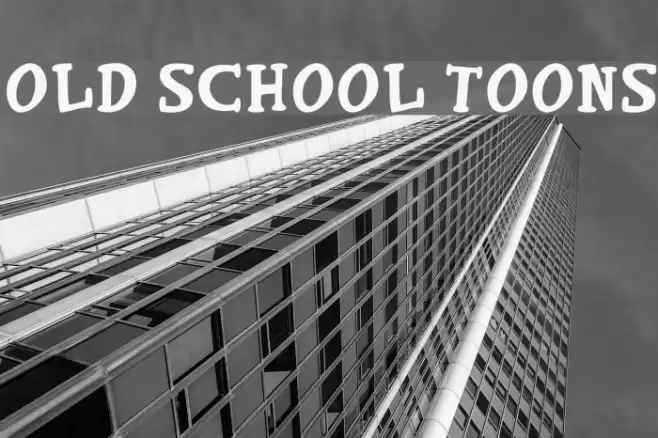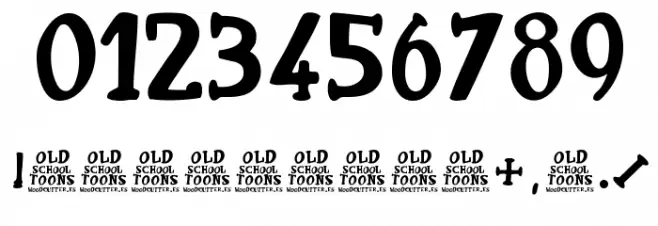
Old School Toons Font
Old School Toons Description
This playful and whimsical font features bold, rounded characters with a cartoonish flair, reminiscent of classic animated films. The letters have a hand-drawn quality, with slight variations and irregularities that add to their charm. The strokes are thick and consistent, providing a strong visual impact. The font includes both uppercase and lowercase letters, numbers, and a selection of special characters, making it versatile for various design needs. Its unique style is perfect for projects that require a touch of nostalgia and fun.
A bold, cartoonish font with a playful, hand-drawn style from Uncategorized fonts.
- Proposed Projects: Ideal for children's books, comic strips, animated film titles, and playful branding projects.
- Overall Style: Vintage